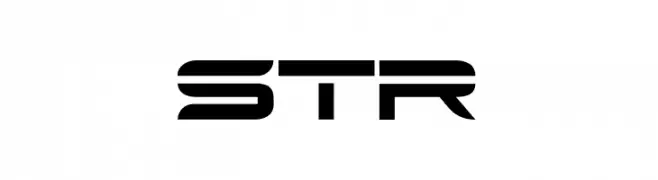
A playful, casual script font with smooth, flowing lines and rounded edges.
A playful, handwritten font with rounded edges and a casual style.
A bold, vintage-style font with ornate numerals and strong uppercase letters.
An elegant script font with high contrast and flowing, cursive style.
A futuristic, geometric font with sharp angles and clean lines.
A lively, handwritten-style font with bold, dynamic strokes and a playful character.
A lively and flowing script font with elegant, cursive letterforms and playful loops.
A bold, rounded font with a playful and energetic style.
A bold, hand-drawn font with a rugged, artistic style.
A sophisticated script font with flowing, interconnected characters and ornate flourishes.